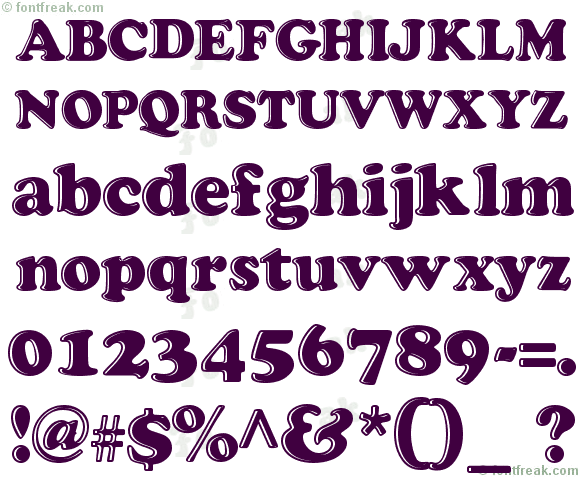
Grease
The Grease font, designed by Rafael Dinner in 1996, is a playful and distinctive display typeface that captures the essence of a carefree and retro aesthetic. As a decorative font, it features a bold, rounded structure with a lively character that makes it stand out in any design context. The strokes exhibit a medium weight with slight variations in contrast, providing a dynamic yet balanced appearance. The spacing between the letters is generous, allowing for easy legibility while enhancing its whimsical charm. Decorative elements, such as the exaggerated curves and slightly uneven edges, contribute to its hand-crafted feel, reminiscent of vintage signage and informal lettering.
The Grease font is particularly well-suited for a variety of creative applications. Its playful nature makes it an excellent choice for movie posters, especially for projects with a nostalgic or retro theme. Additionally, it works wonderfully for restaurant menus, where it can evoke a fun dining experience. Wedding invitations can benefit from its unique character, adding a touch of personality to the special occasion. Other ideal uses include branding for casual businesses, such as cafes or ice cream shops, where a friendly and inviting vibe is essential.
This font appeals to a diverse audience, including graphic designers looking to add a unique touch to their projects, small business owners seeking an eye-catching logo, and content creators aiming for visually striking social media graphics.